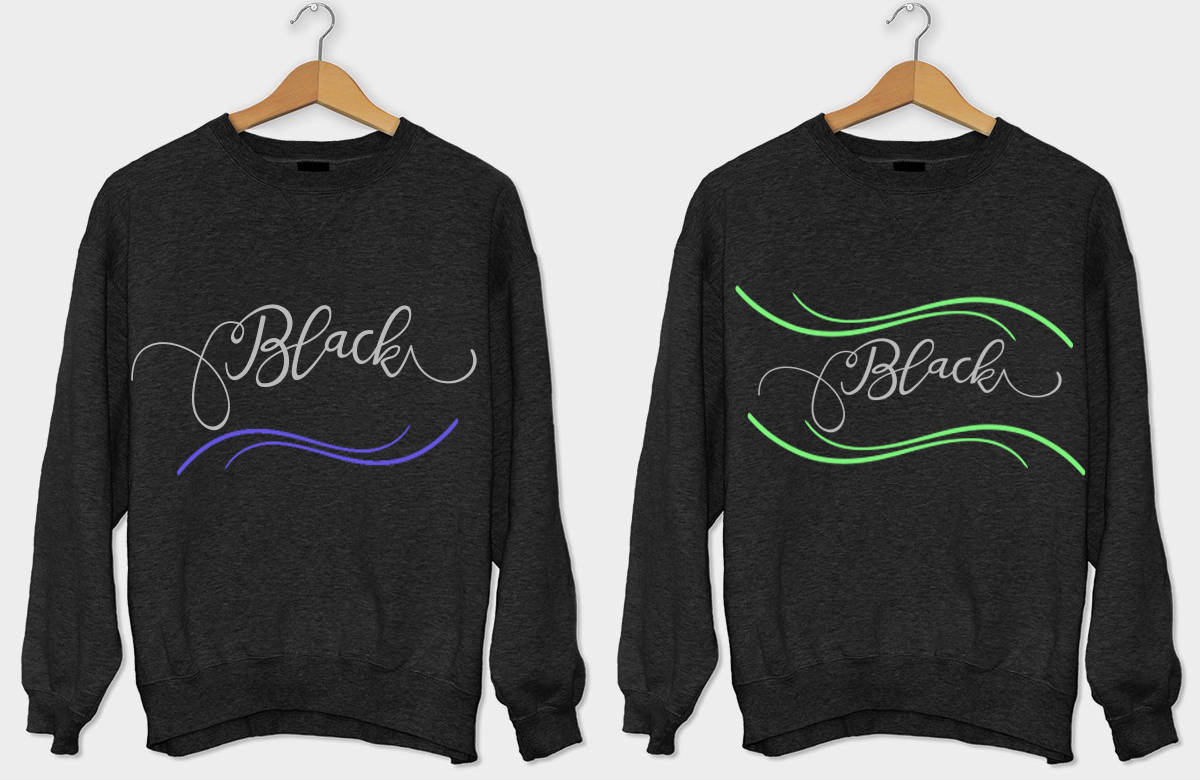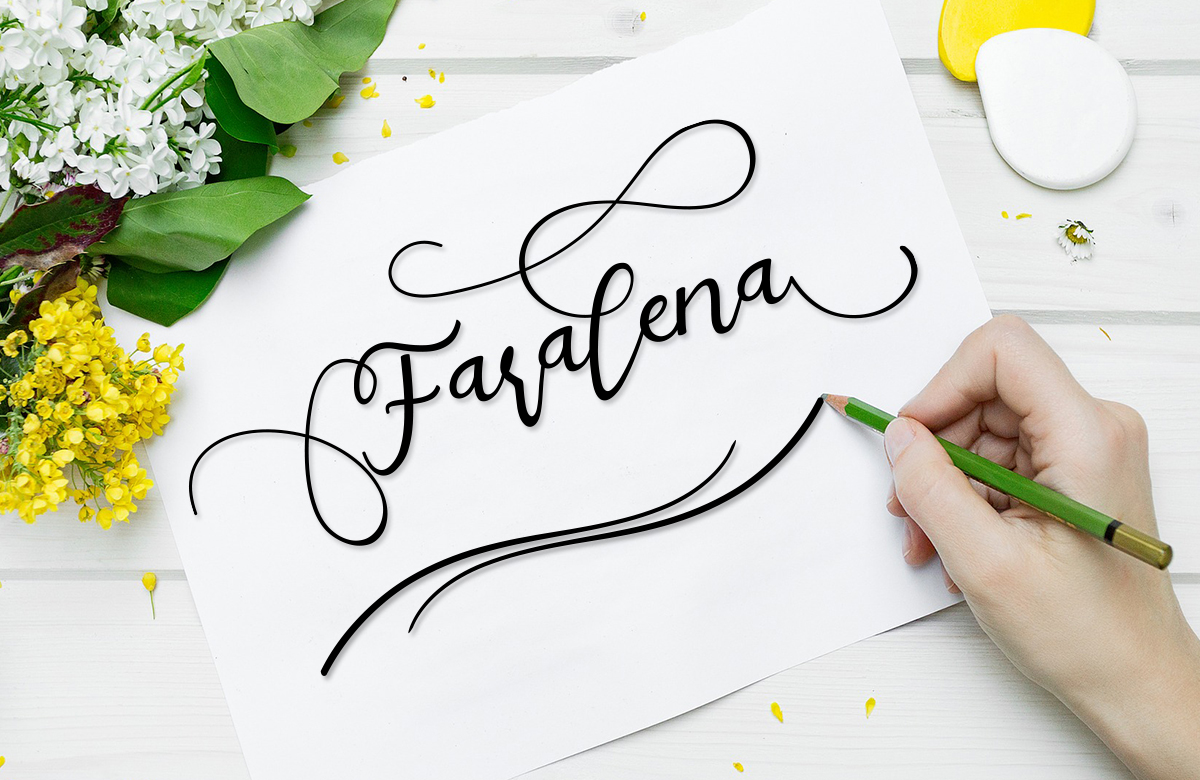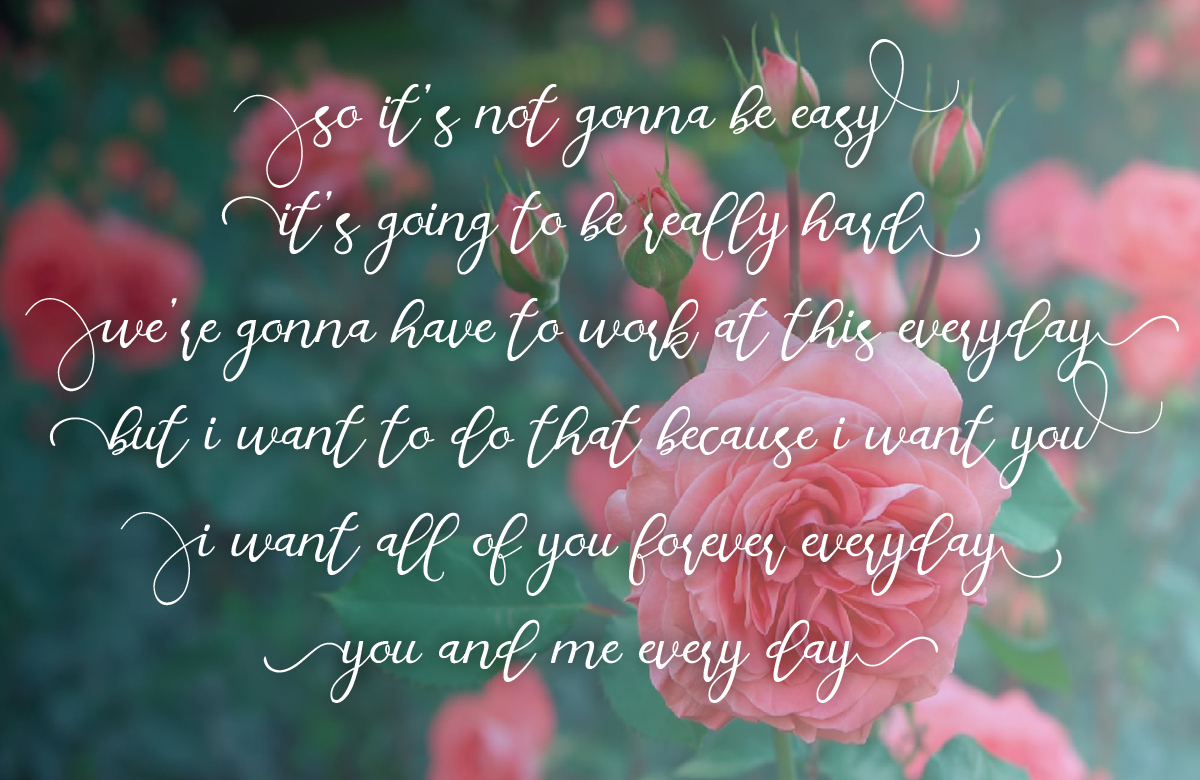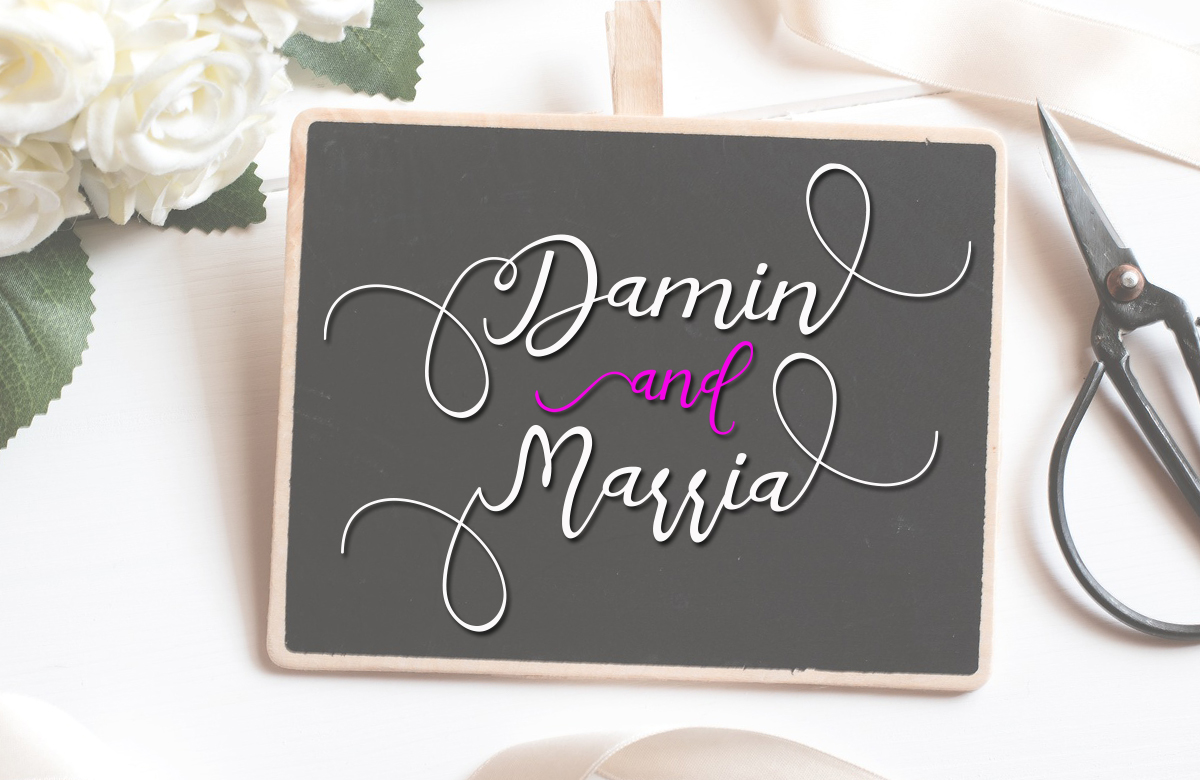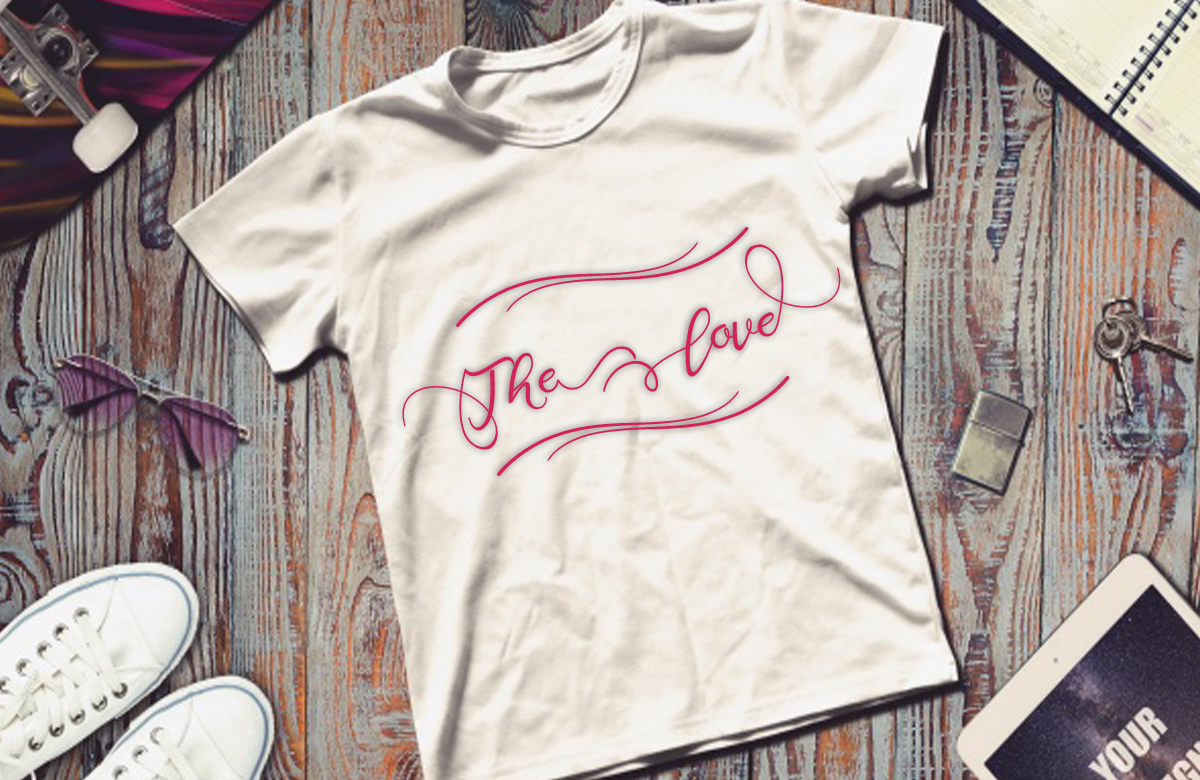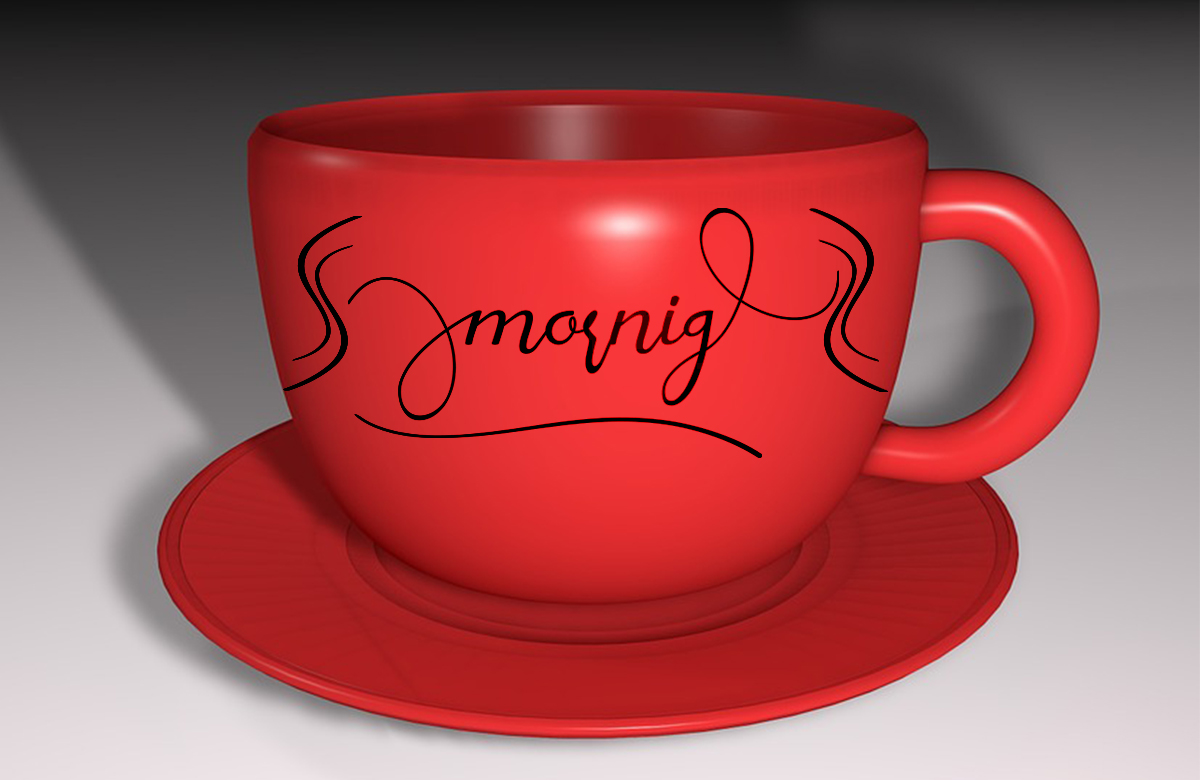
Bellagia Font: Elevate Your Designs with Elegance and Sophistication
In the world of typography, fonts play a crucial role in conveying the tone and personality of a design. For designers and crafters seeking to add a touch of elegance and romance to their projects, the Bellagia font is an exceptional choice. This stunning font, crafted in an ornamental script style, is perfect for creating beautiful headlines and titles that capture the essence of luxury and sophistication.
The Beauty of Bellagia Font
Bellagia is a gorgeous and flourished font, designed to make a statement. Its calligraphy-based style is characterized by intricate and flowing lines, giving it a sense of movement and fluidity. The font’s ornate details and elegant swashes make it ideal for use in high-end designs, such as luxury branding, wedding stationery, and upscale advertising.
Perfect for Headlines and Titles
One of the key features of the Bellagia font is its ability to command attention. Its beautiful, cursive script makes it perfect for use in headlines and titles, where you want to make a lasting impression. Whether you’re designing a poster, brochure, or website, Bellagia is sure to add a touch of sophistication and glamour to your project.
Add a Romantic Touch to Your Projects
Bellagia’s romantic and elegant style makes it an excellent choice for designers and crafters working on projects that require a touch of whimsy and charm. From wedding invitations and save-the-date cards to packaging and product labels, this font is sure to add a dash of romance and personality to your designs.
- Ornamental script style: Bellagia’s beautiful, cursive script is perfect for creating elegant headlines and titles.
- Calligraphy-based design: The font’s intricate and flowing lines give it a sense of movement and fluidity.
- Elegant swashes: Add a touch of sophistication and glamour to your designs with Bellagia’s beautiful swashes.
- Perfect for luxury branding: Use Bellagia to create high-end logos, packaging, and advertising materials.
Tips for Using Bellagia Font
To get the most out of the Bellagia font, here are a few tips to keep in mind:
- Use it sparingly: Bellagia is a statement font, so use it sparingly to avoid overwhelming your design.
- Pair it with a sans-serif font: Pair Bellagia with a clean, sans-serif font to create a beautiful contrast.
- Experiment with colors: Bellagia looks stunning in metallic colors, such as gold and silver, or in rich jewel tones.
In conclusion, the Bellagia font is a gorgeous and elegant addition to any design project. Its ornamental script style and calligraphy-based design make it perfect for creating beautiful headlines and titles that exude luxury and sophistication. Whether you’re a designer, crafter, or DIY enthusiast, Bellagia is sure to become a favorite font in your collection.